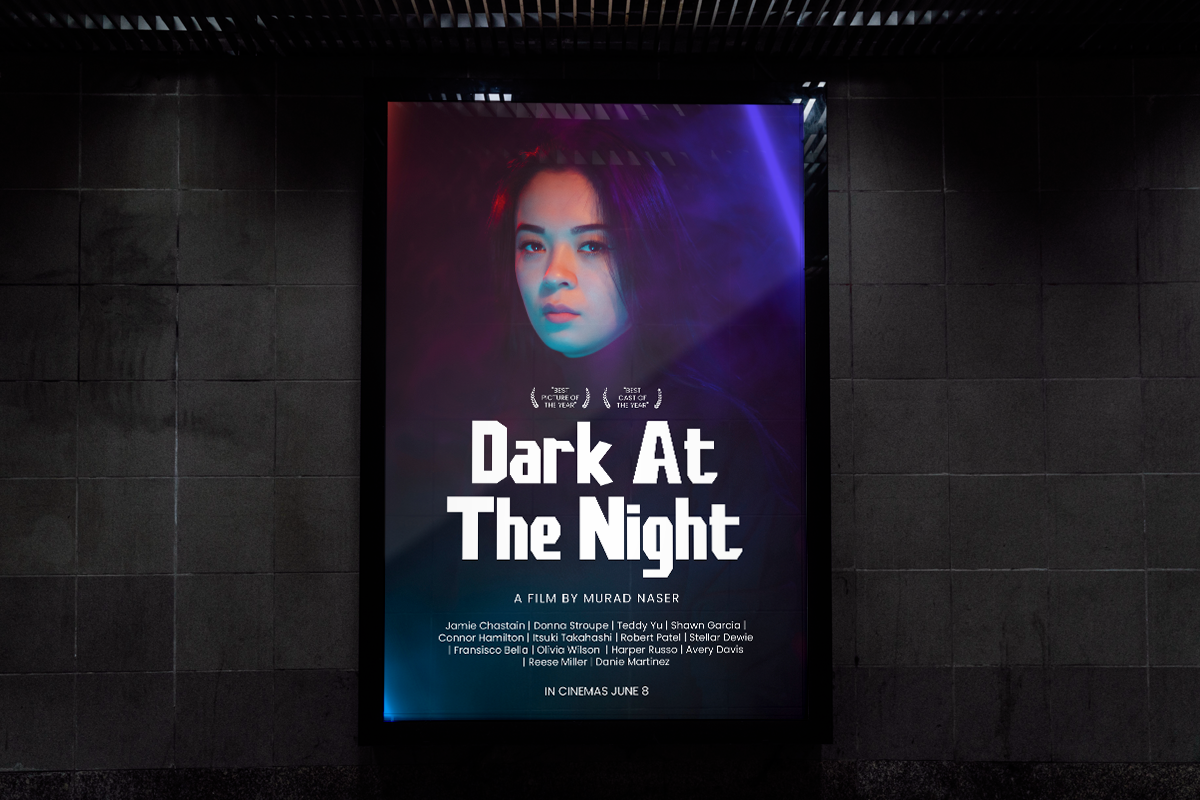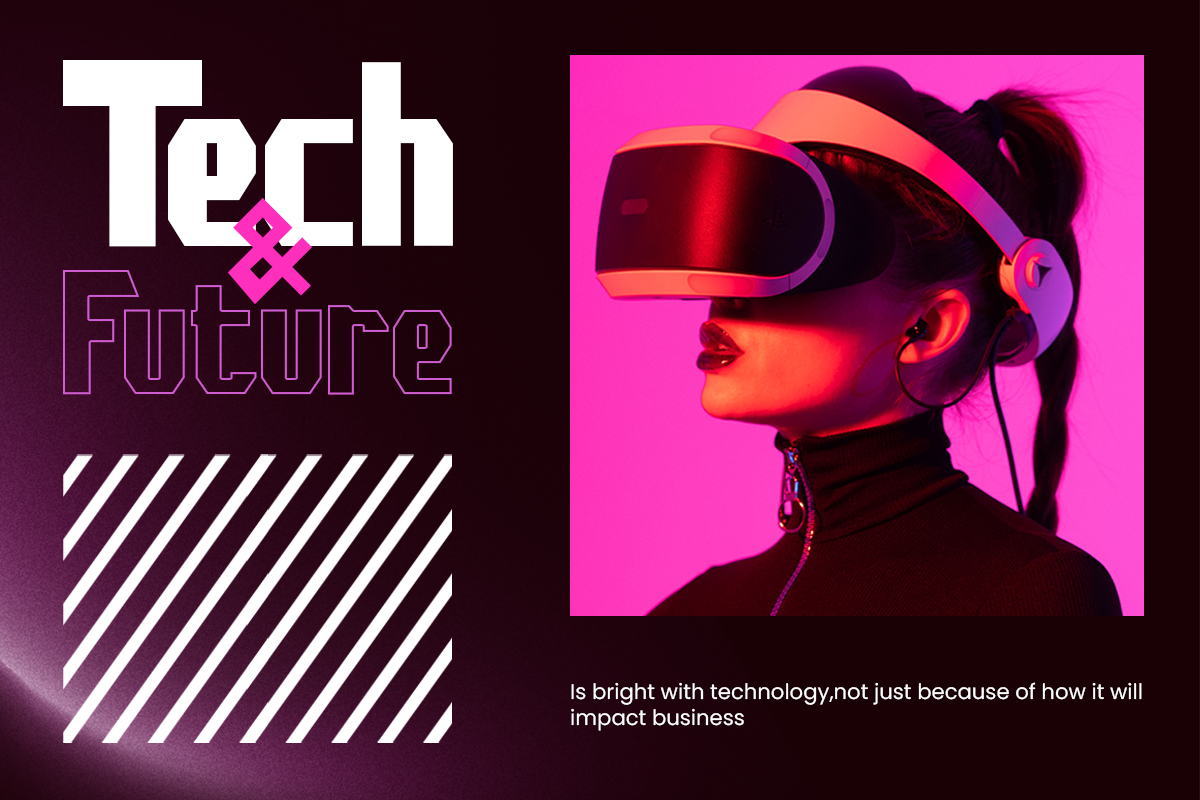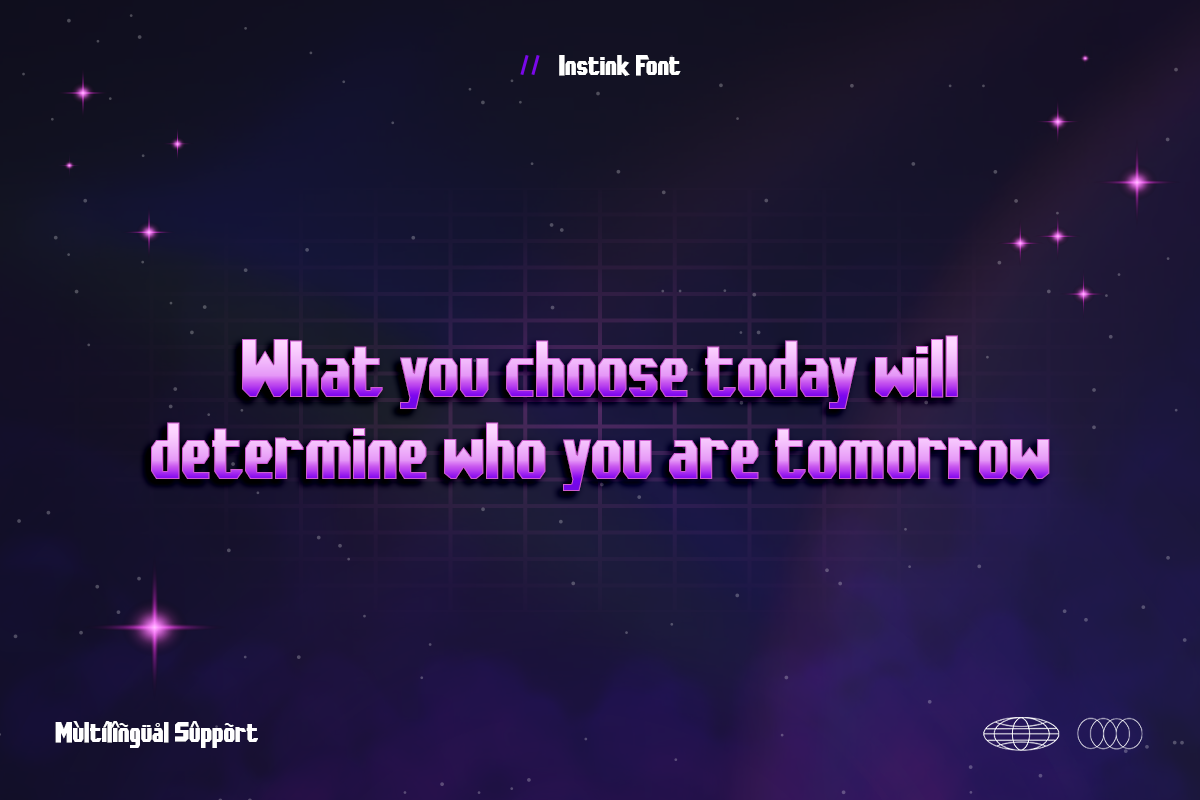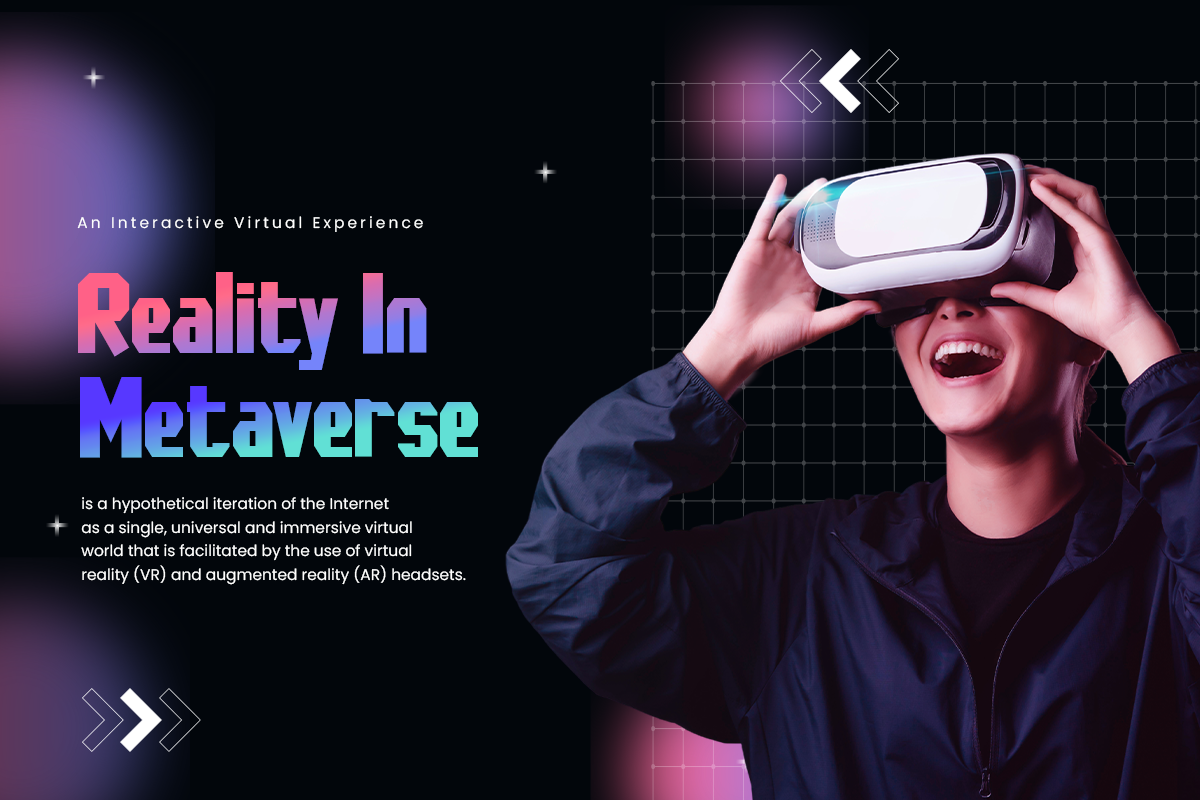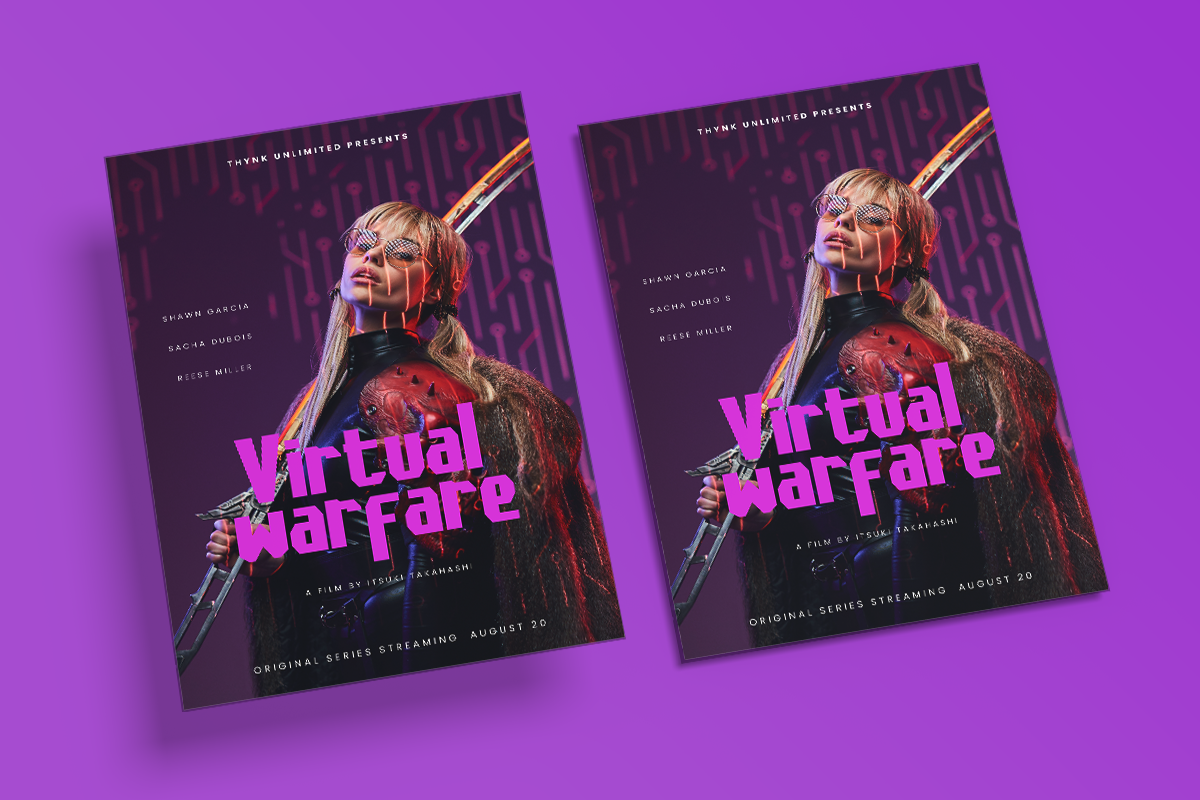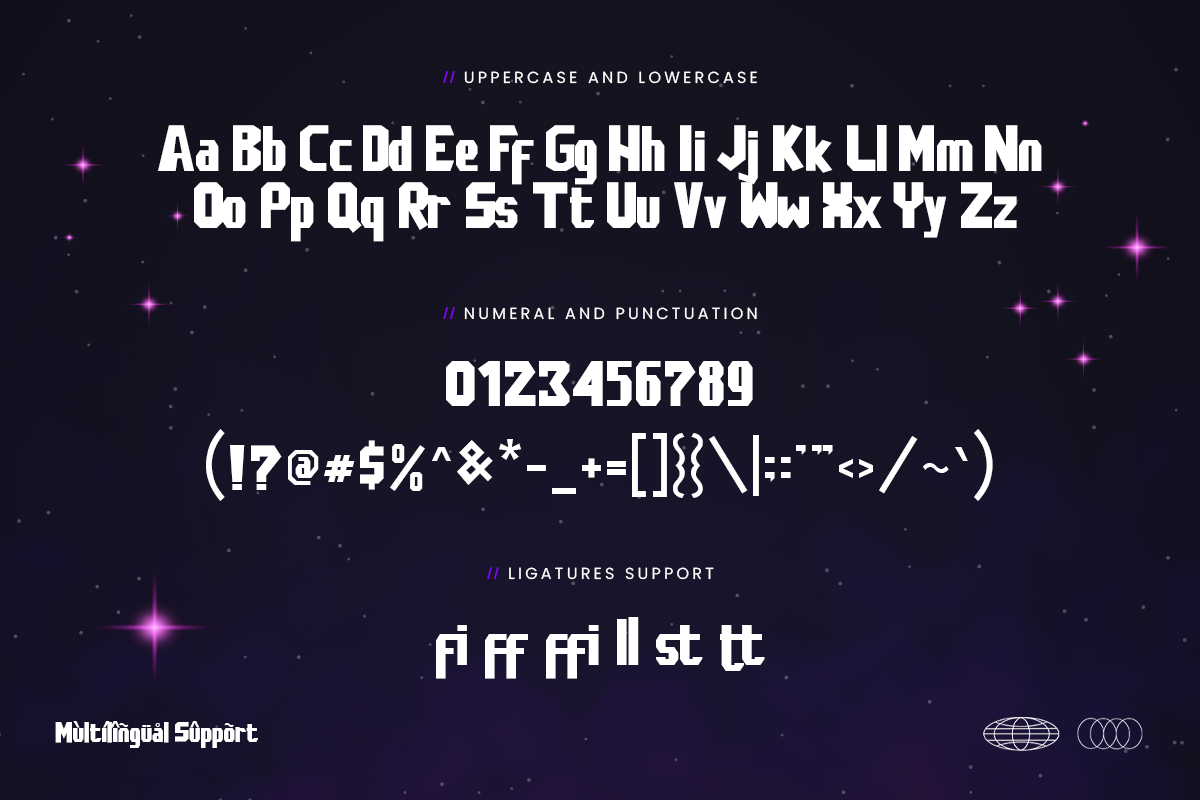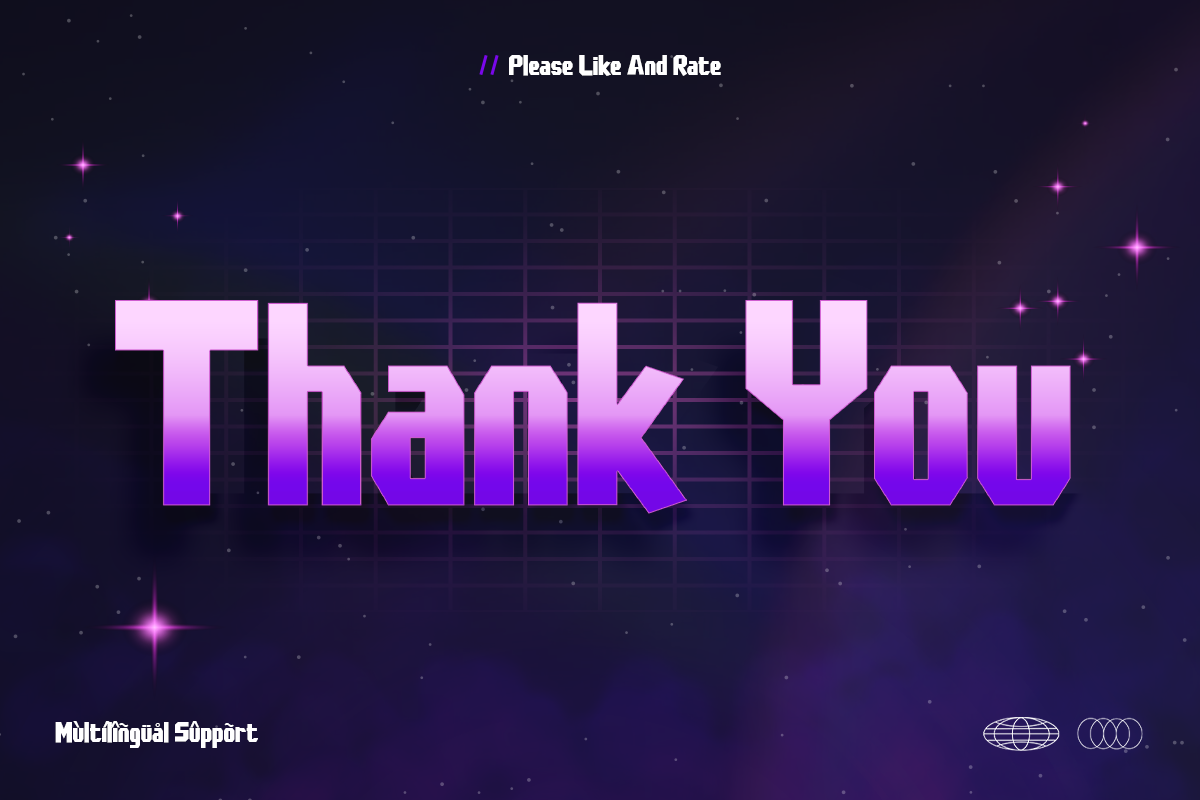
Instink Futuristic Font A type of Display & E-sport font, Instink Futuristic Font features futuristic design elements. Each letter of this font is easily distinguishable. You can read it clearly from a distance as well as from a close-up. The letters in this font resemble a fairly large square block, designed to look modern, futuristic, and mechanical. A typeface like this is ideal for posters and billboards placed along the roadside that contain product promotions or announcements. The Instink futuristic font is also a good font to use for a video's animation. It can be used as a title or subheading that appears in the intro and to write thank you notes at the outro of a video. Instink font can also be used on book and tech magazine covers. However, because the letters are large and blocky, this type of font is not suitable to write the contents of newspapers, magazines, or articles on the web. This font is better used to write a short sentence or a word because it will look bold and firm. Our Espot & Futuristic fonts collection is compatible to use as Figma fonts, Canva fonts, Freepik Fonts, and Adobe Fonts. They also work as Windows Fonts, and Apple Fonts. For your social media needs, you can use and install fonts in our collection of Espot & Futuristic fonts to use as Instagram Fonts, Facebook Fonts, and Twitter Fonts.